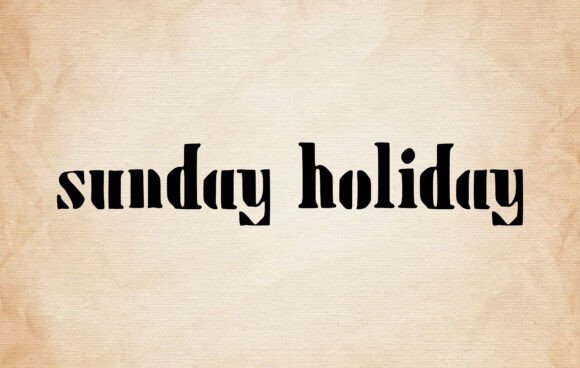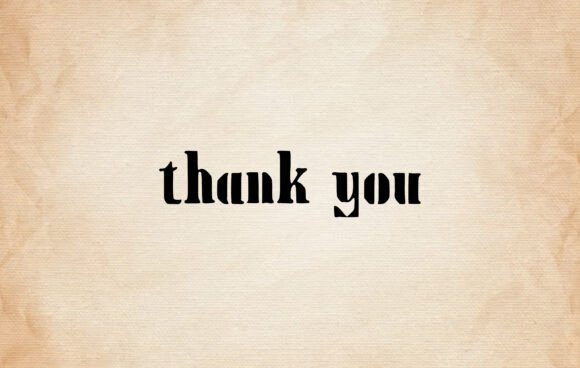
Introduction to Every Breath Font
As a designer, there’s nothing quite like the rush of creating something new and seeing it come to life. It’s that moment when the pixels align, the colors pop, and the typography flows effortlessly – pure magic. And that’s exactly what the Every Breath Font aims to capture: the essence of creativity and self-expression. With its unique blend of style and legibility, this font is poised to become your go-to design resource for any high-quality project.
Whether you’re working on a social media campaign, designing wedding invitations, or crafting a magazine headline, the Every Breath Font offers the perfect balance of flair and functionality. Its transparent background and free download make it an instant favorite among designers, and its versatility ensures that it will elevate any creative project to new heights.
Key Features of Every Breath Font
- High-quality design with a modern and creative touch, perfect for a wide range of projects.
- Unique characteristics include a clean and minimalist aesthetic, making it ideal for branding, logos, and creative projects.
- Can be easily customized and edited using most font editing software, allowing for a high degree of flexibility and creativity.
Honest Review: Every Breath Font
I recently had the chance to experiment with the Every Breath Font, and I must say it’s a high-quality design resource that’s perfect for creative projects. The font itself has a clean and modern aesthetic that can easily be incorporated into various design elements.
What works well: ✨ The Every Breath Font features a transparent background, which makes it easy to use as a standalone design element or overlay it onto other graphics. The font also comes in a range of sizes and styles, making it versatile for a variety of design applications.
- ✨ High-quality design with a modern aesthetic
- ✨ Versatile font with multiple sizes and styles
However, there are a few limitations to consider: ⚠️ The font may not be suitable for all types of projects, and some users may find the design a bit too minimalist. Additionally, while the free download is a great perk, the font may not be as robust as some paid design resources.
Overall, I think the Every Breath Font is a great addition to any design library. Its high-quality design and versatile features make it a great resource for creative projects, and the free download is a definite bonus. While it may have some limitations, I believe it’s a solid choice for designers looking for a modern and clean font.
Tips and Use Cases
Some common use cases for Every Breath Font include: creating invitations, designing social media graphics, and writing blog posts. To get the most out of Every Breath Font, experiment with different font sizes, colors, and styles to find the combination that works best for your project.